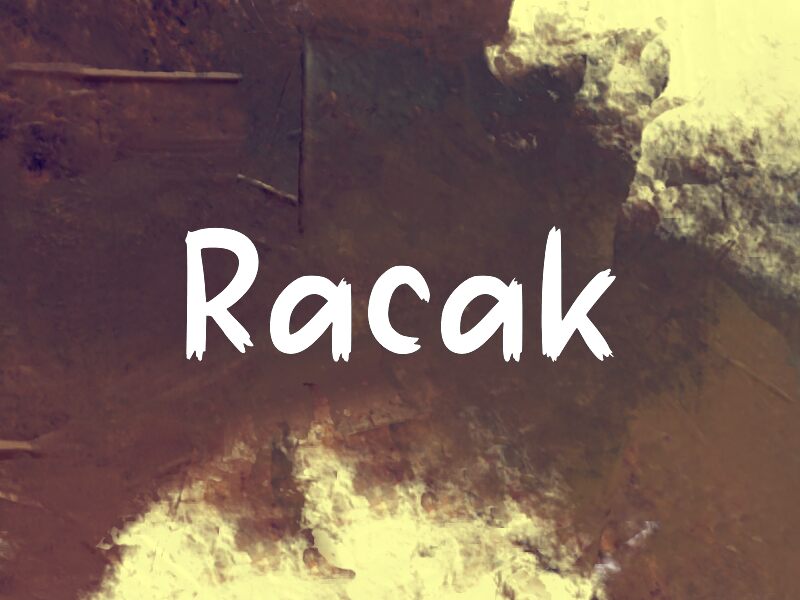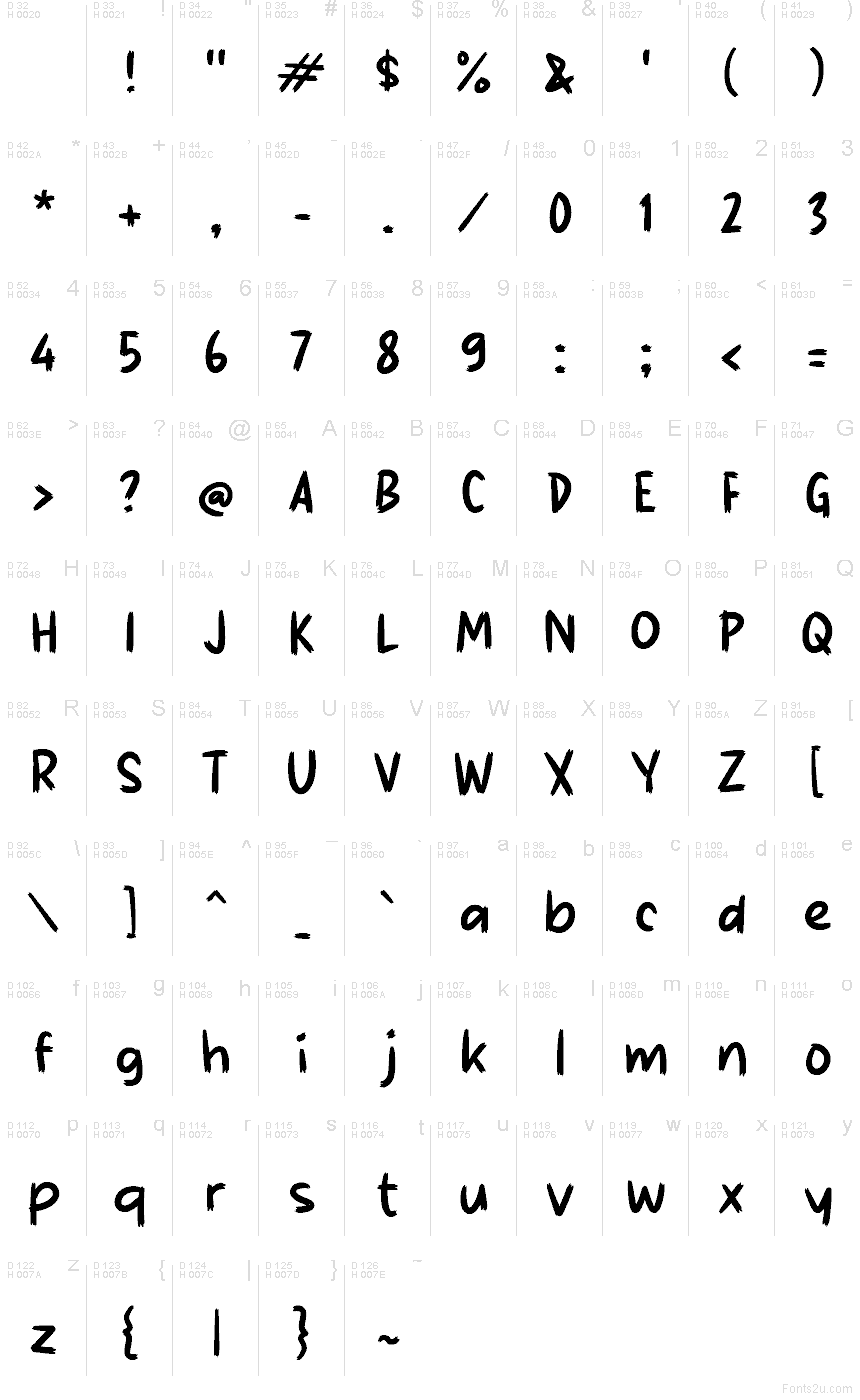
Racak
Racak font by wepfont.com is a free brush font that gives you hand-painted energy without sacrificing clarity. Its bold, inky strokes feel like they were dragged quickly across paper, yet the shapes stay open and easy to read, even at smaller sizes. The letters lean slightly with a casual bounce, creating a friendly, expressive rhythm that doesn’t turn messy or chaotic.
Using Racak, you can add a punchy, handwritten headline to posters, social media graphics, product packaging, event flyers, book covers, and playful logos in seconds. This free font shines when used large, then paired with a clean sans serif for supporting text to keep everything grounded and readable.